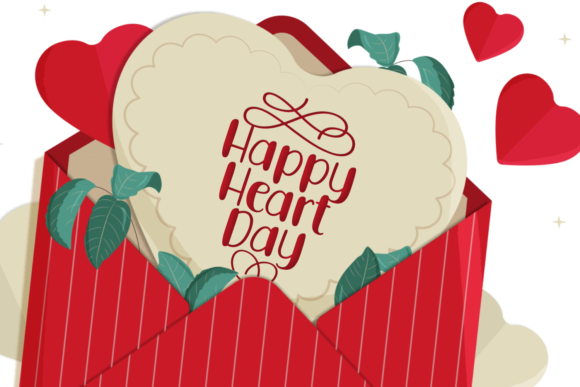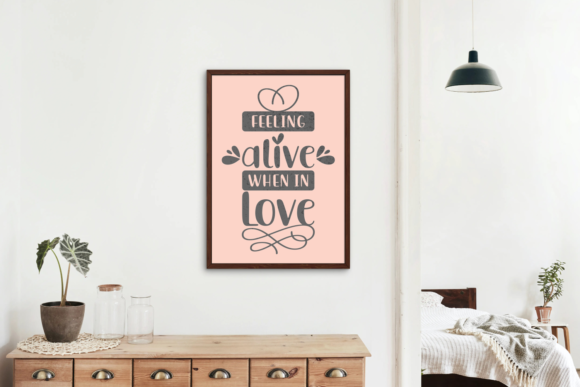
Eclipe Font
About Eclipe Font
Eclipe is a whimsical and charming script font that exudes a relaxed and carefree vibe. Its lovely style adds a touch of playfulness to any design, making it a versatile addition to your fonts’ library. This font’s unique and quirky look has the potential to elevate a wide range of creations, from fun and lighthearted designs to more sophisticated and artistic projects.
With Eclipe, you can add a touch of whimsy to various design projects, including branding, logos, invitations, greeting cards, posters, social media graphics, and more. Its relaxed theme and delightful curves make it a great choice for projects where you want to convey a sense of fun and joy.
In branding and logos, Eclipe can add a distinctive and memorable touch, making your brand stand out from the competition and leaving a lasting impression on your audience.
For invitations and greeting cards, Eclipe’s whimsical style creates a playful and inviting atmosphere, setting the tone for a fun and enjoyable event.
In posters and social media graphics, Eclipe’s relaxed theme and lovely style make your content more engaging and eye-catching, capturing the attention of your viewers and conveying your message in a unique way.
In artistic projects and creative designs, Eclipe’s charming look can add a touch of creativity and imagination, making your artwork more expressive and captivating.
Eclipe’s potential to elevate any creation lies in its ability to inject a sense of whimsy and charm into various designs, making them more delightful and appealing to the audience. Its versatility ensures that it can be used across a wide range of themes and styles, offering a fun and relaxed touch to your creative endeavors.
Overall, Eclipe is a whimsical script font that brings a relaxed and lovely style to your designs, making it an excellent asset for your fonts’ library. With its potential to elevate any creation, you can infuse your projects with a touch of playfulness and charm, making them stand out and leaving a positive and lasting impression on your audience.